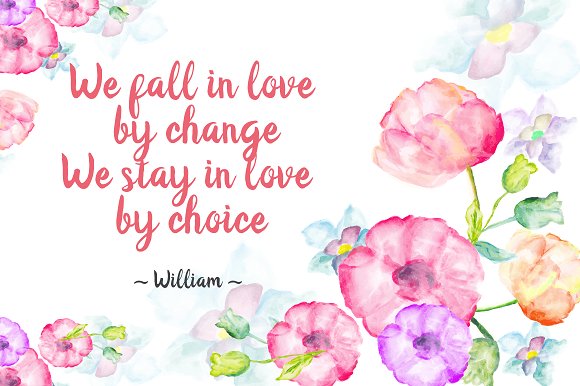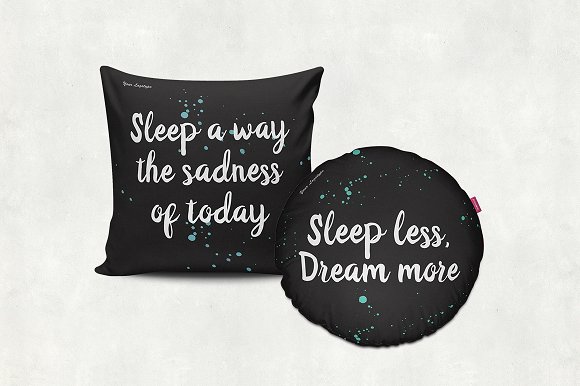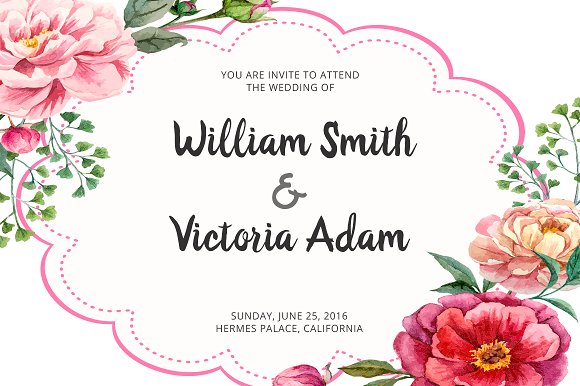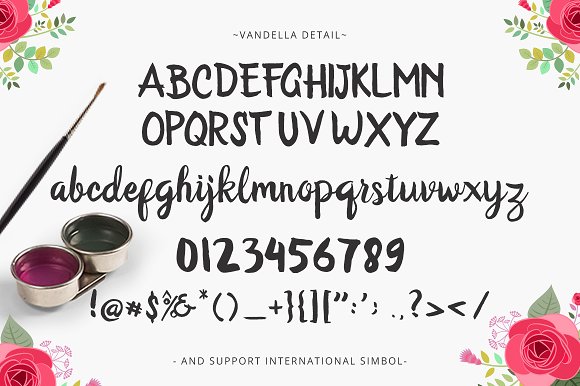
HomeScript FontsVandella Font Script Fonts Vandella Font FacebookXPinterestWhatsApp Vandella Font Poster 2 Vandella Font Poster 3 Vandella Font Poster 4 Vandella Font Poster 5 About Vandella Font Vandella, a fun hand-inked font created by Unicode. DOWNLOAD ON CREATIVE FABRICAThis font is sold and delivered by Creative Fabrica. Font Canyon may earn a commission if you buy through this link. People also explored Heart Choice Font Castand Font Sunday Spring Font Bluband Font Amsterdam Signature Font Mock-Up Farmhouse Sign Sports Line Font Snowdrop Font Deadwax Font 300 0 TagsVandella Font Previous articleLady Love FontNext articleSunlight Font LEAVE A REPLY Cancel reply Comment: Please enter your comment! Name:* Please enter your name here Email:* You have entered an incorrect email address! Please enter your email address here Website: Save my name, email, and website in this browser for the next time I comment. Personal Use Free Straighler Personal Use Free Read more about this font Engebrechtre Personal Use Free Read more about this font Vanchrome Personal Use Free Read more about this font Metal Lord Personal Use Free Read more about this font BLOG Free Fonts Risk: Why Free Fonts Can Be Dangerous for Designers Free Fonts Risk: Why Free Fonts Can Be Dangerous for Designers Using free fonts is a common practice in web and graphic design. However, the... Top 7 Google Fonts Alternatives for Faster and Privacy-Friendly Web Design (2025) Using Fonts in Digital Marketing: Tips to Strengthen Your Brand Identity Modern Sans-Serif Fonts That Brands Love in 2025